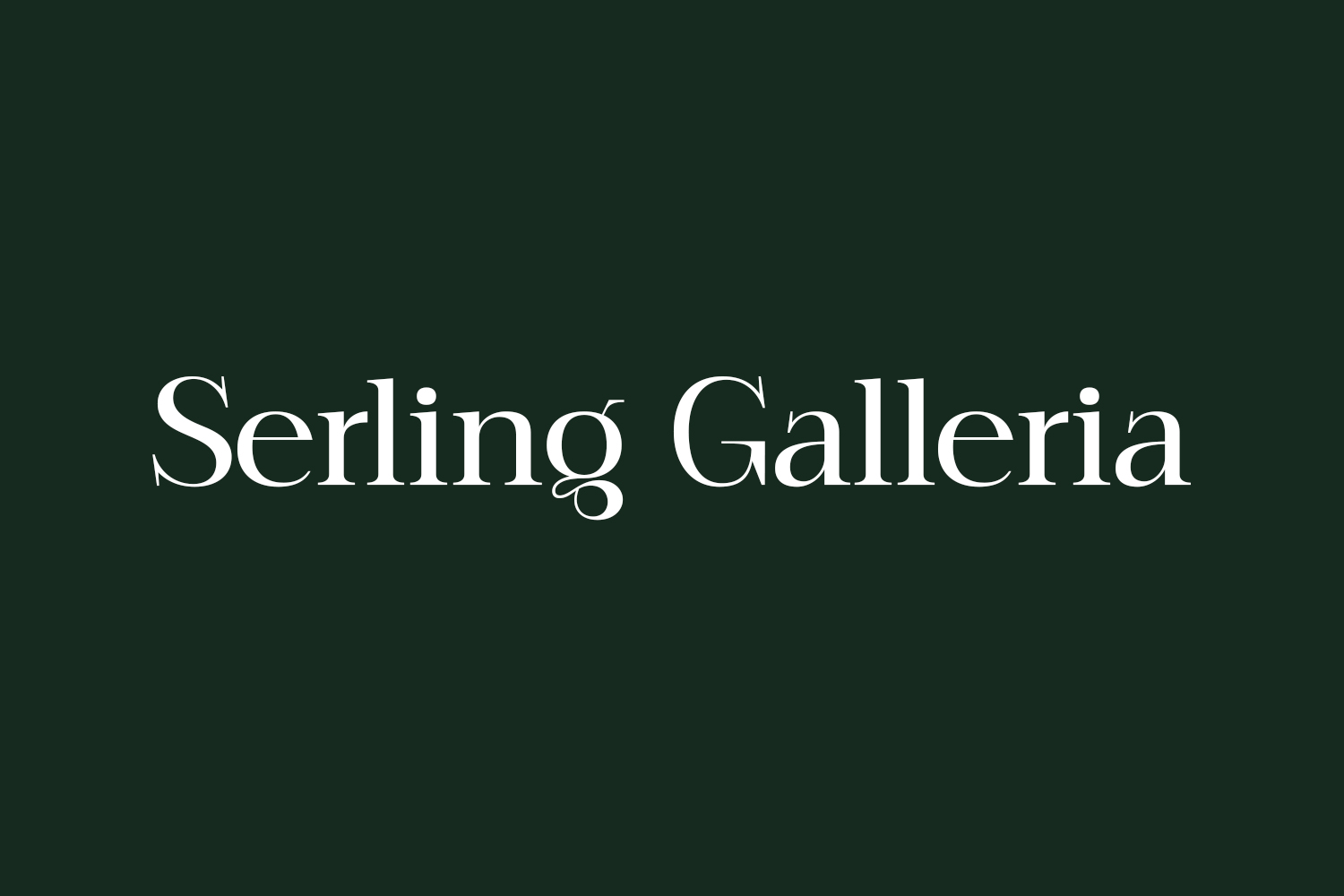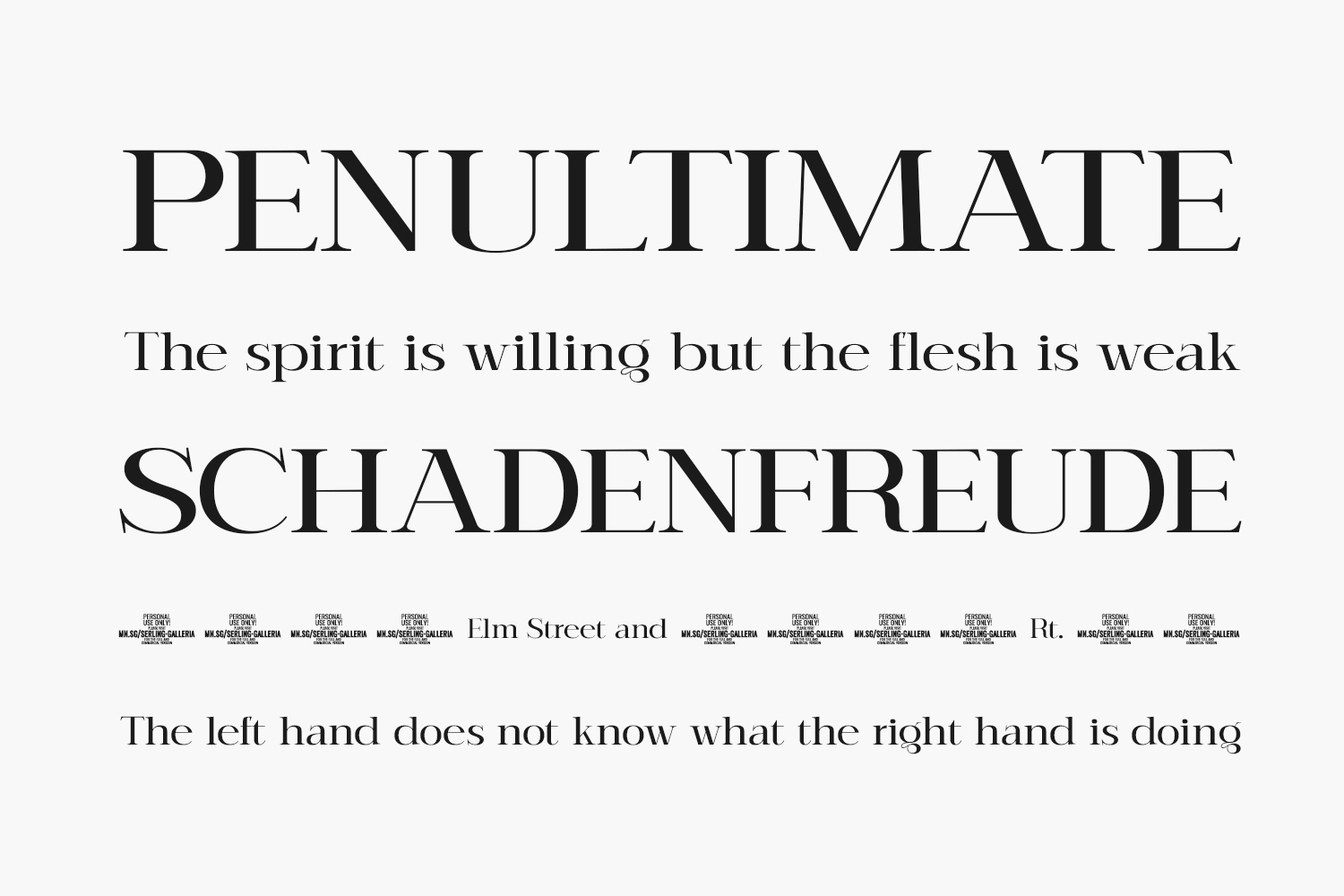
Serling Galleria Free Font Family features a modern and elegant serif design, with bold and sharp edges that give it a sophisticated and professional look. Serling Galleria Free Font Family adds a more condensed and refined appearance to the original design, making it ideal for use in headings, titles, and other large text applications. Serling Galleria Free Font Family is a demo and free for personal use only. Please purchase the full version for commercial use.